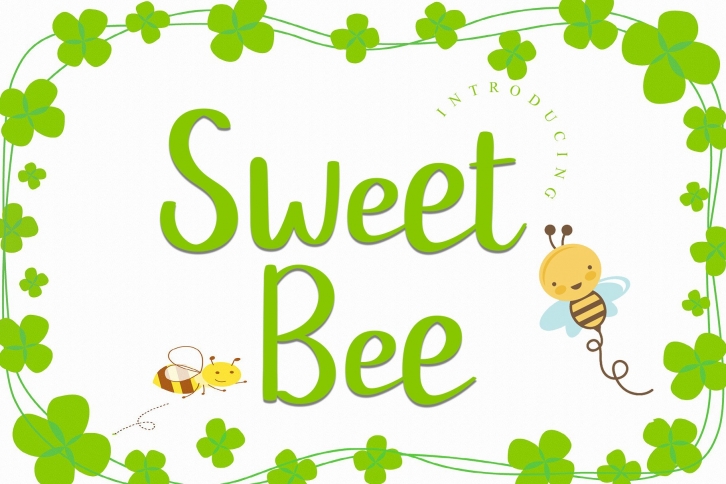
Sweet Bee is a delicate, elegant and flowing handwritten font. It has beautiful and well balanced characters and as a result, it matches a wide pool of designs. Fall for its ravishing style and use it to create gorgeous designs!